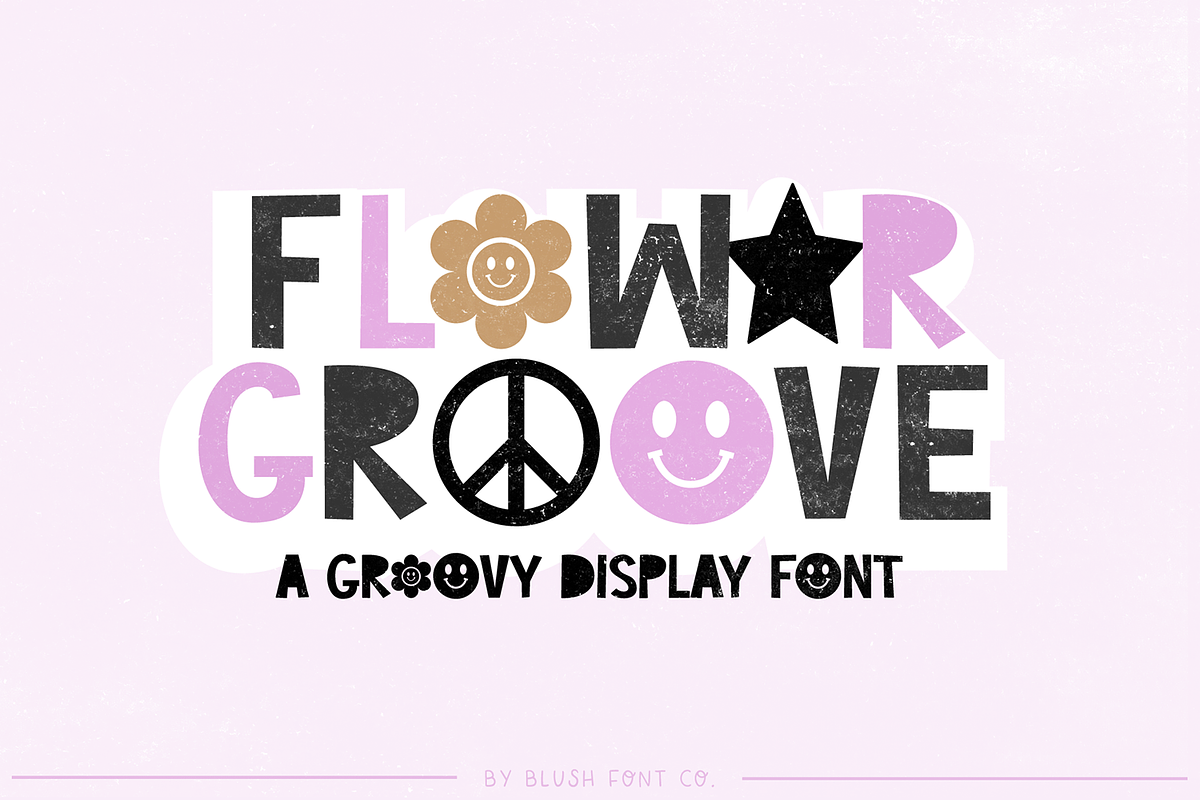
The FLOWER GROOVE Retro Smiley Face Font Free Download is a fun and vibrant typeface that combines retro vibes with a playful smiley face design. Inspired by the groovy styles of the 70s, this font is perfect for creating lively, eye-catching designs for posters, event branding, logos, and social media graphics. Whether you're working on a retro-themed project, a music festival, or a playful brand identity, Flower Groove brings a unique and joyful energy to your designs.
FLOWER GROOVE Retro Smiley Face Font Free Download is ideal for designers looking to add a playful, nostalgic touch to their work. Perfect for projects that need a burst of positivity, this font will help your designs stand out with its retro charm and cheerful style. Download it today and infuse your creative projects with vibrant, feel-good energy!